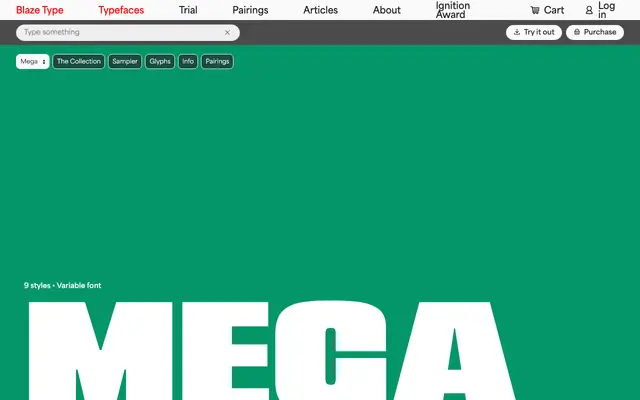
Mega
Blaze Type · Matthieu Salvaggio, Malo Haffreingue · 2023
A nine-style neo-grotesque display family by Matthieu Salvaggio and Malo Haffreingue, ranging from ultra-condensed rectangular counters to ultra-extended rounded forms, with wooden poster type as a key reference.
Spanning nine styles from Nano to Tera, the family traces a path from tightly compressed, rectangular counter shapes at one extreme to broad, rounded forms at the other, all within a single variable file. The design draws on the tradition of wooden display types documented by Rob Roy Kelly, reframed as a contemporary display tool for posters, banners and large-format headlines. Available as TTF, WOFF, WOFF2 and variable formats for Latin European languages.
Described as a neo-grotesque, the family spans ultra-condensed to ultra-extended widths with rectangular to rounded counter shapes, placing it firmly in display grotesque territory inspired by historical wooden poster types.